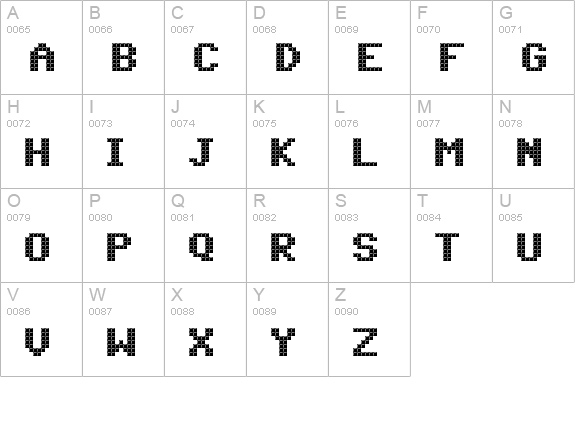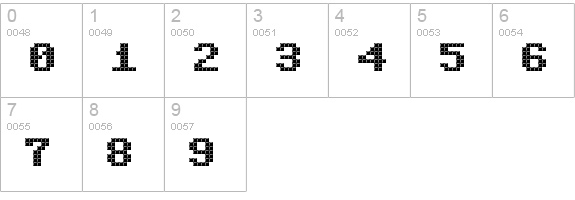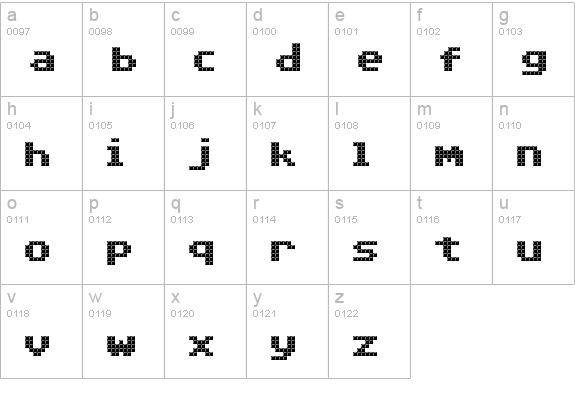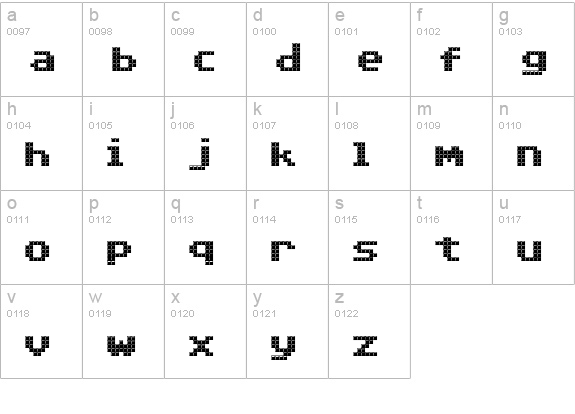
Introducing Triad XS, a captivating and versatile font that is sure to make a bold statement in any design project. This font exudes a sense of modernity and sophistication, with its sleek lines and sharp edges. Whether used for headlines, logos, or body text, Triad XS effortlessly captures attention and leaves a lasting impression. What sets Triad XS apart is not only its stunning aesthetics but also its accessibility. This font is available for free download exclusively at FontsMarket.com. Yes, you read that right - free! Now, designers and creatives alike can enjoy the beauty and functionality of Triad XS without any cost, making it an invaluable addition to any font collection. With a wide range of weights and styles, Triad XS offers endless possibilities for customization and creative exploration. From the elegant and refined Thin weight to the bold and impactful Black weight, this font allows designers to effortlessly convey their message with clarity and style. Whether you're designing a minimalist website, a high-end fashion magazine, or a cutting-edge branding project, Triad XS is the perfect choice. Its clean and legible letterforms ensure readability across various mediums, while its unique personality adds flair and character to every design. So why wait? Download Triad XS today, and experience the freedom and versatility it brings to your creative endeavors. Unleash your imagination and create stunning visuals with this exceptional font, freely available at FontsMarket.com. Don't miss out on the opportunity to elevate your designs with Triad XS - the epitome of style and accessibility.